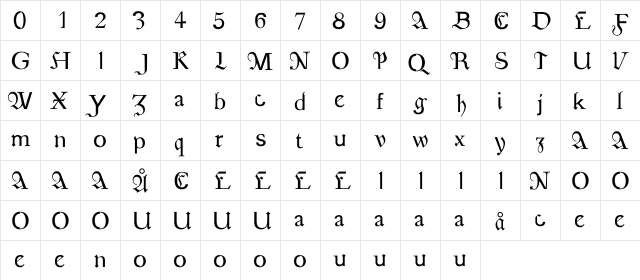
AFHybrid Regular
Design Context for AFHybrid Typeface
AFHybrid is a composed and adaptable typeface that performs quietly and consistently across a wide range of design contexts.